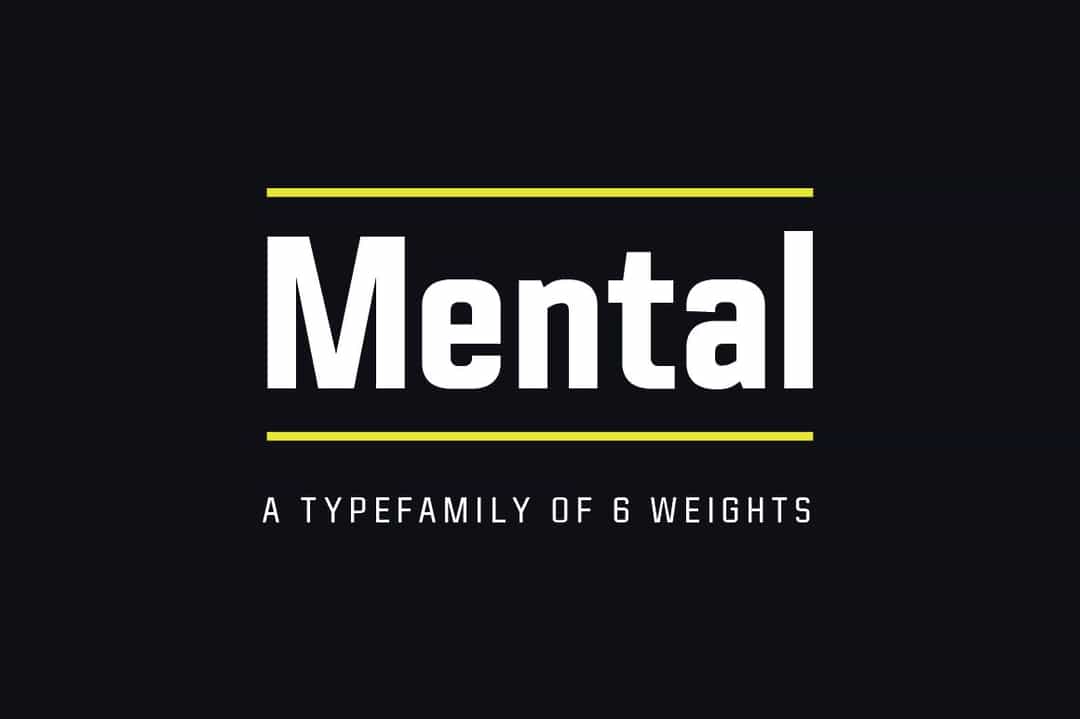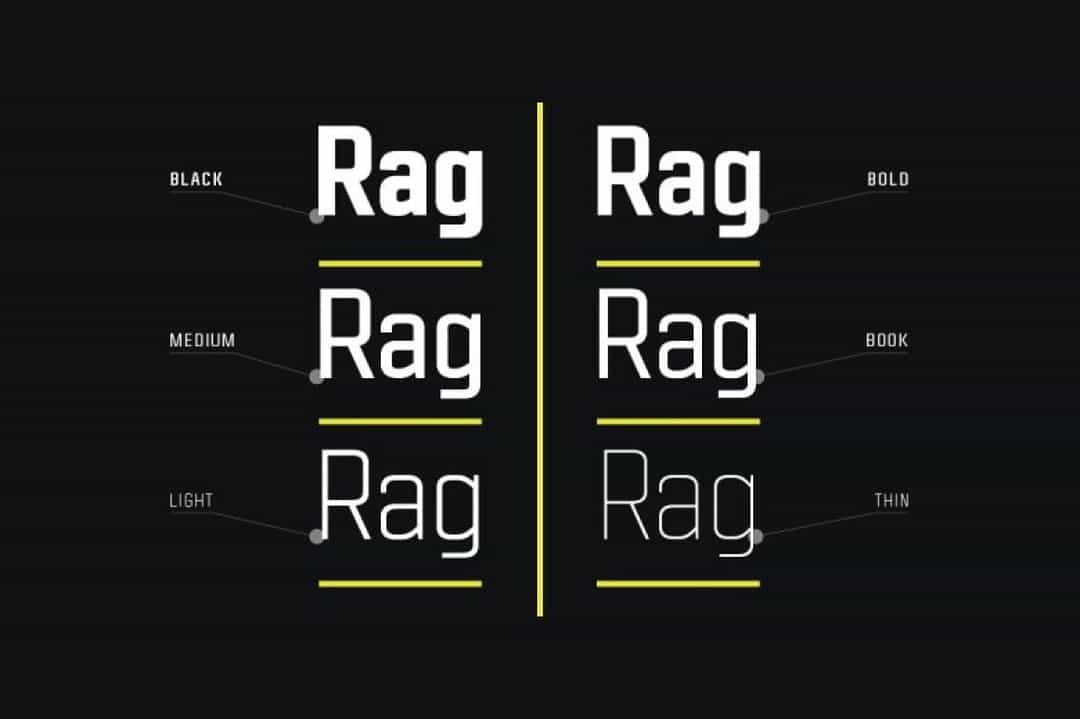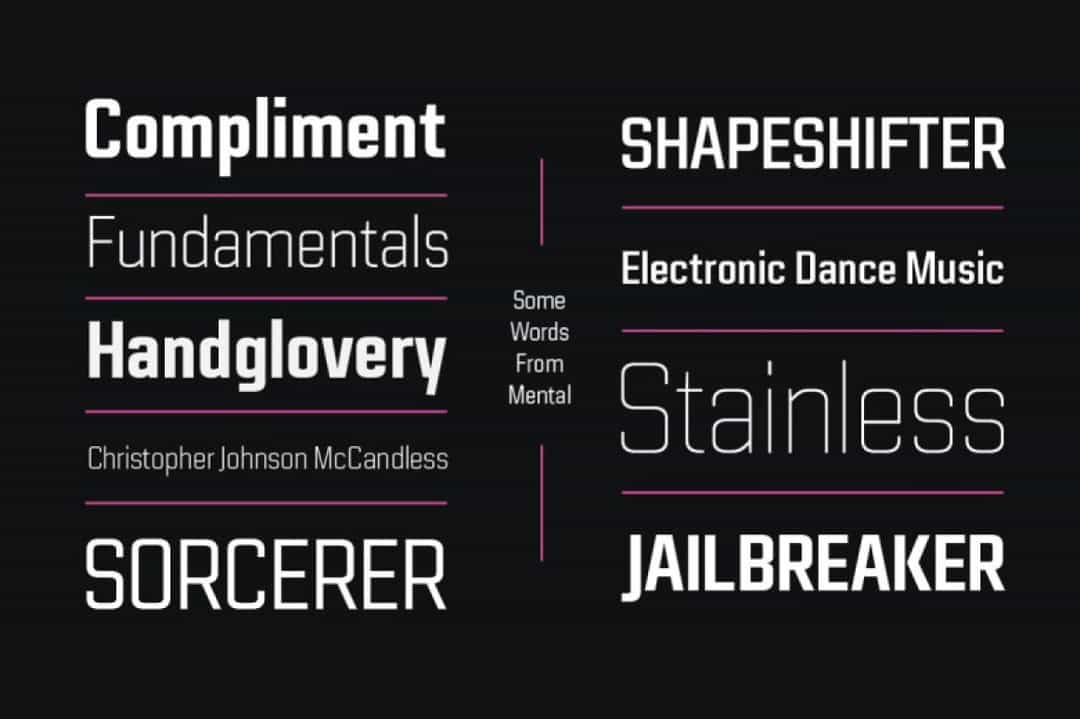
Mental is an uncompressed sans serif font family that comes in six weights. Ideal for headlines posters logos posters and creative work involving headlines posters logos posters etc, Mental has extensive Latin language support as well.